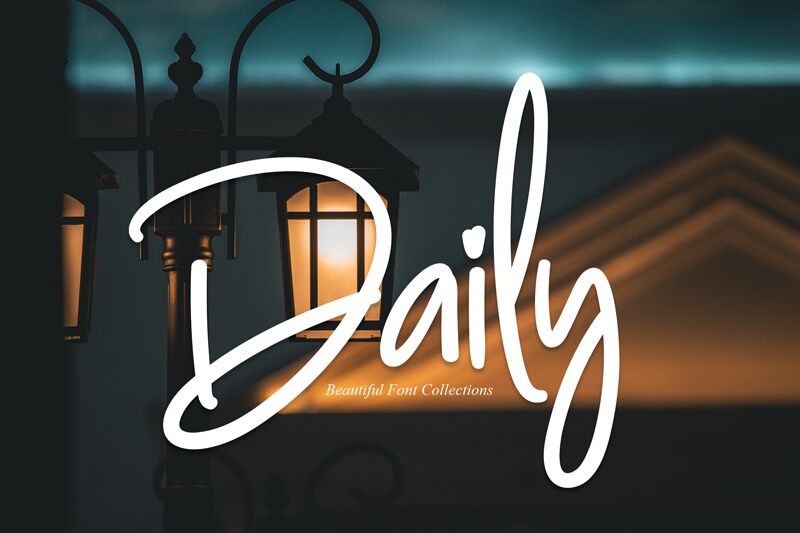
Daily
The Daily font, designed by Inermedia Studio, exudes an elegant charm with its beautifully handwritten style. This versatile typeface is perfect for a wide range of projects, including wedding invitations, fashion magazines, and lifestyle blogs. Its graceful curves and flowing strokes lend a touch of sophistication to any design, while maintaining a sense of approachability and warmth. With its natural feel and attention to detail, Daily is the ideal choice for creating memorable logos, branding materials, and social media graphics that effortlessly capture attention and leave a lasting impression.